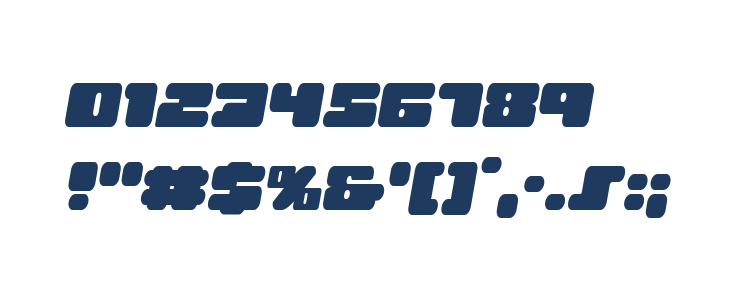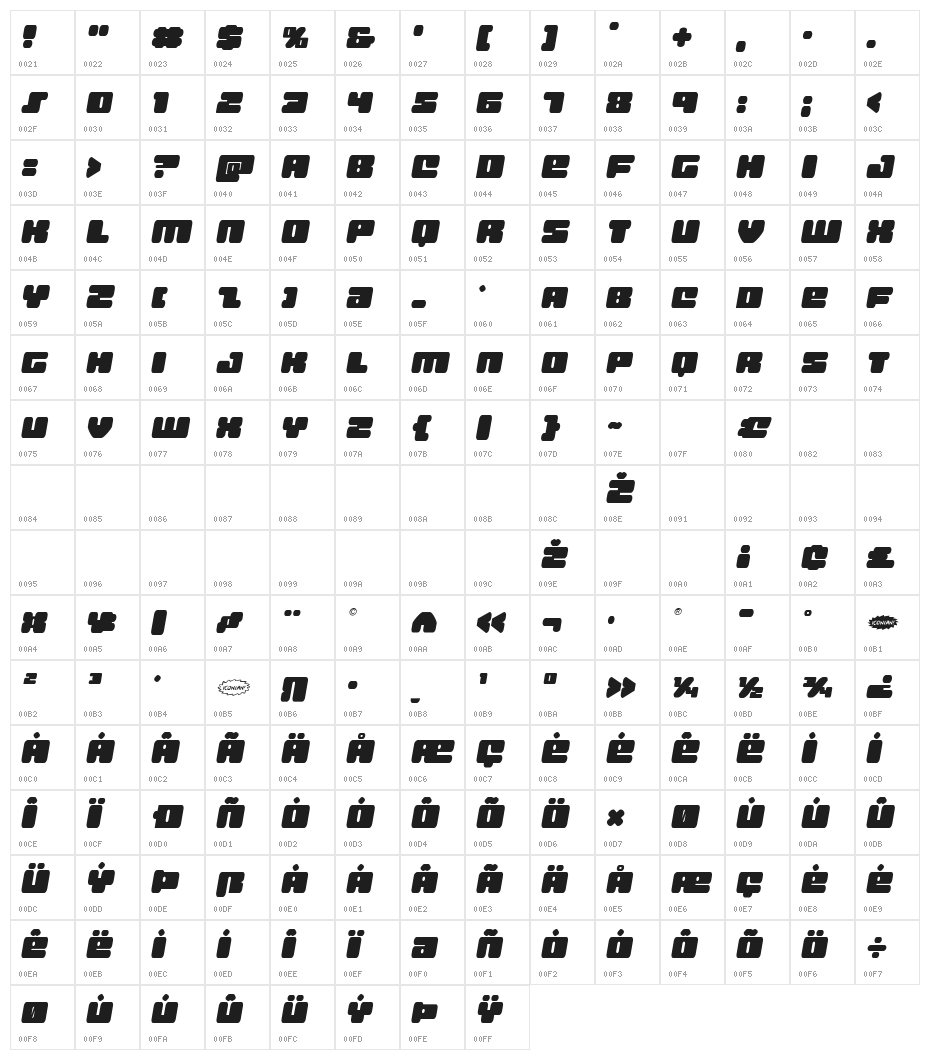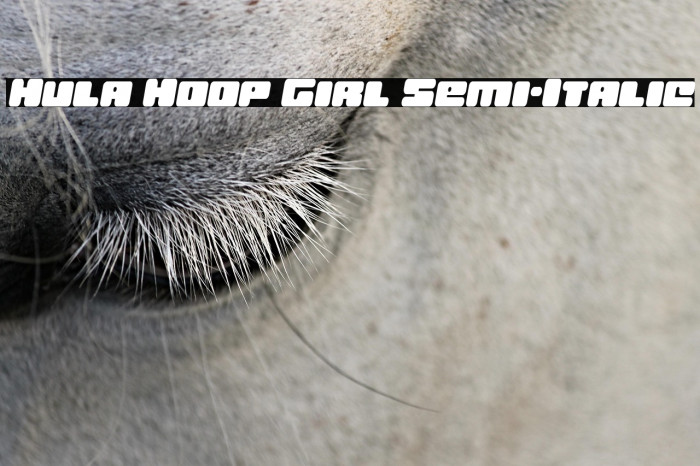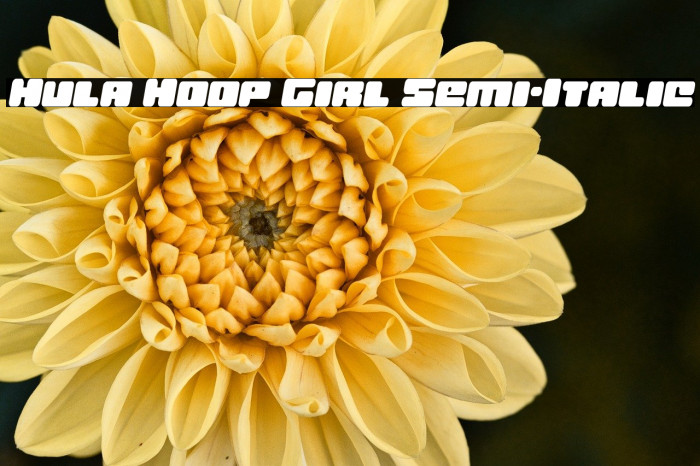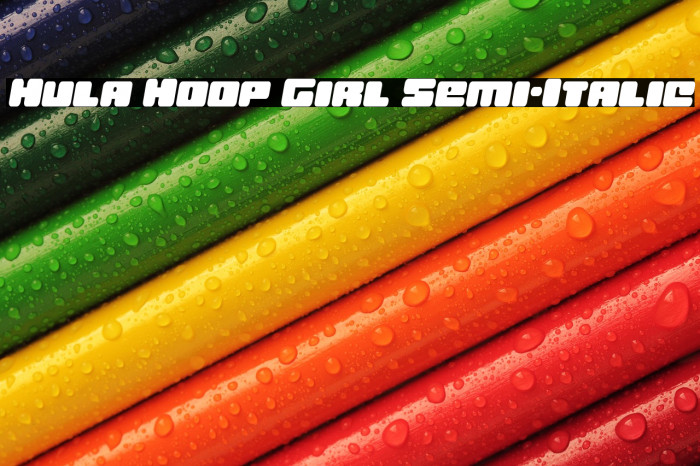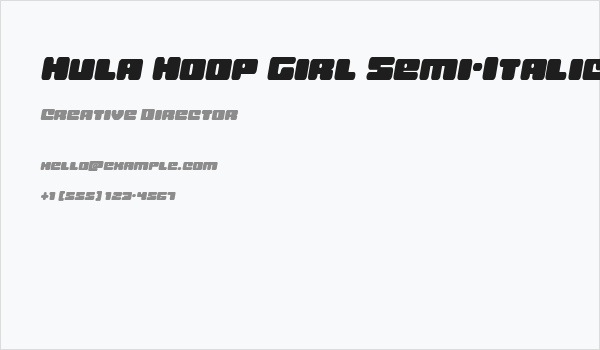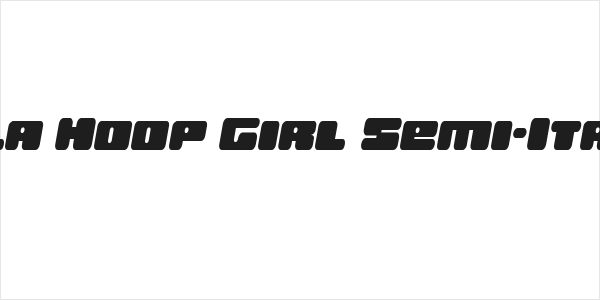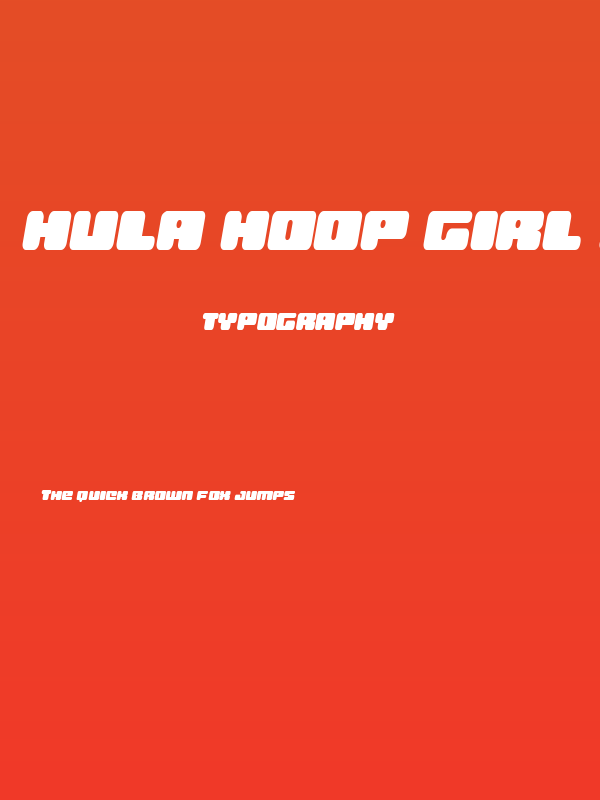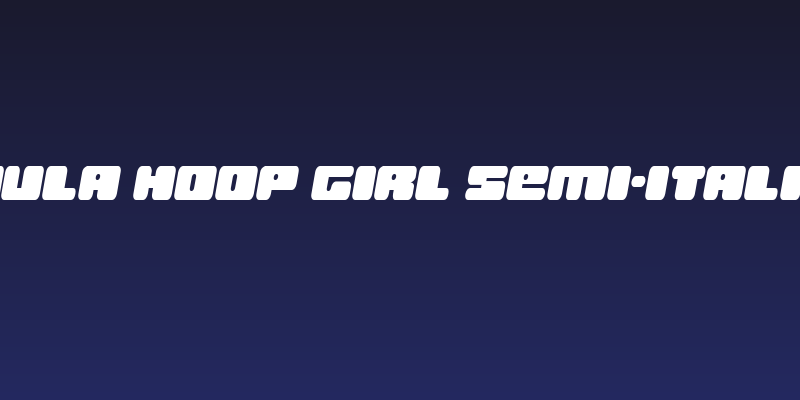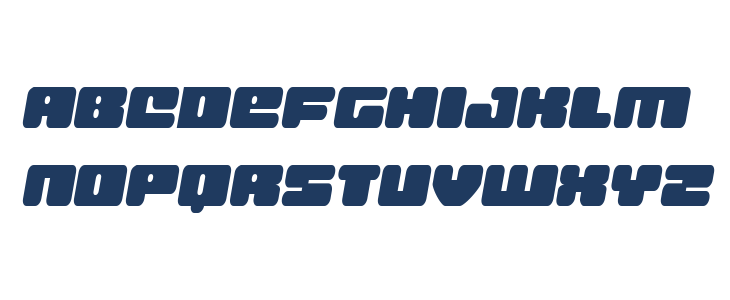
Hula Hoop Girl Semi-Italic Font
Hula Hoop Girl Semi-Italic Description
This font features a bold, playful design with rounded edges and a semi-italic slant, giving it a dynamic and energetic appearance. The characters are thick and robust, with a consistent stroke width that adds to its boldness. The rounded corners and smooth curves contribute to a friendly and approachable feel, making it suitable for a variety of informal and creative applications. The font maintains a uniform height across all characters, ensuring readability while adding a touch of modernity. Its unique style is both eye-catching and versatile, making it ideal for projects that require a strong visual impact.
Proposed ProjectsIdeal for branding, posters, children's books, and playful graphic designs.